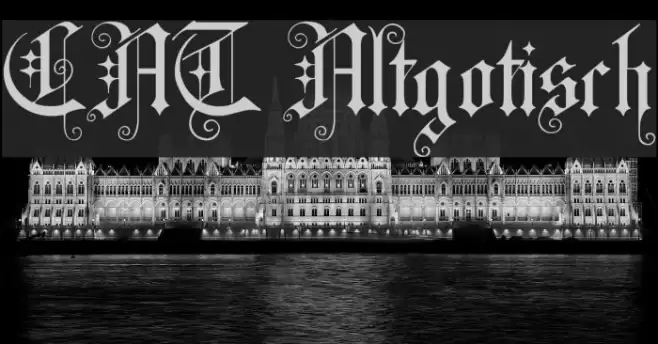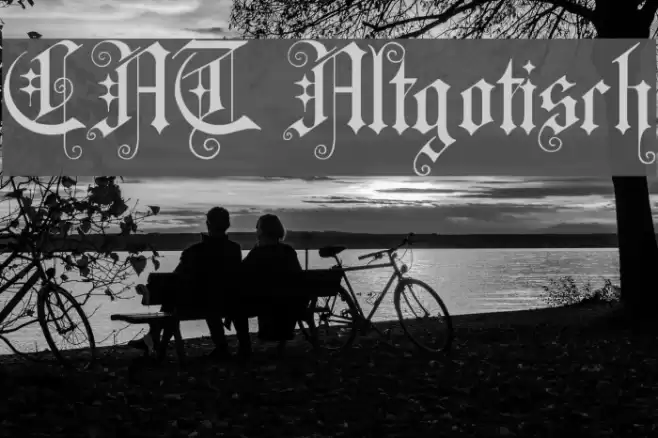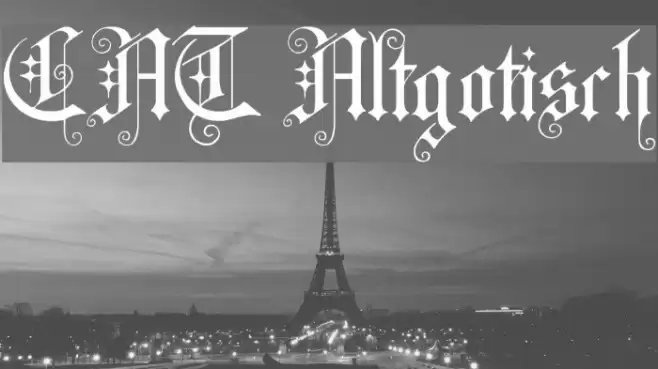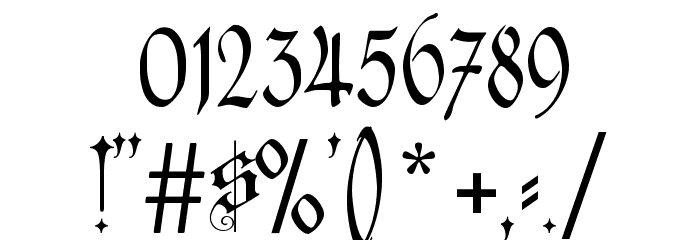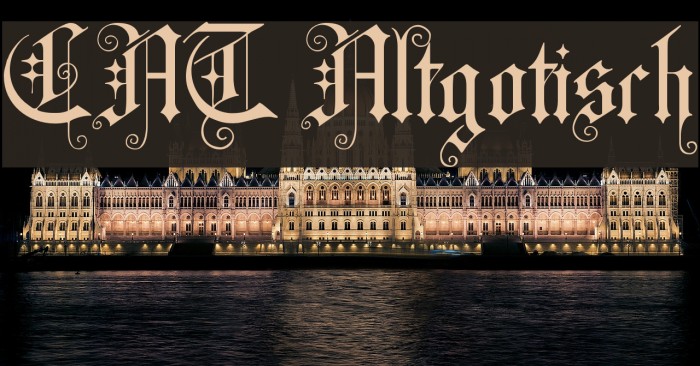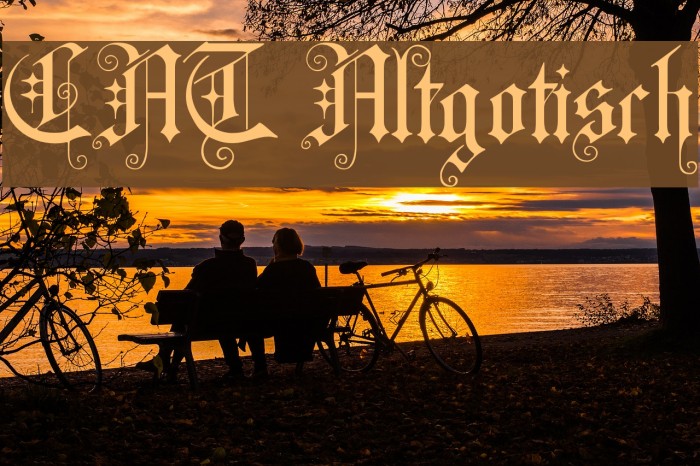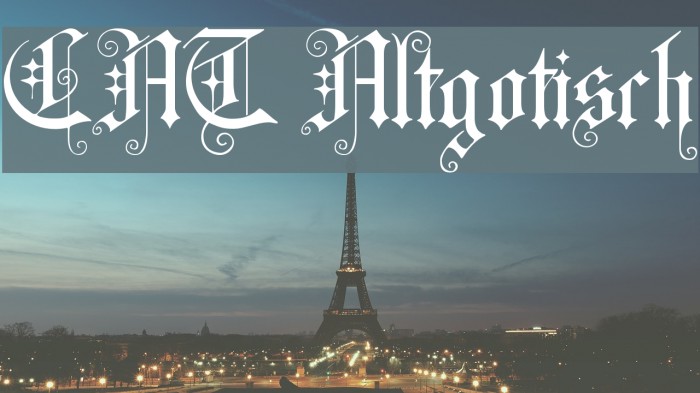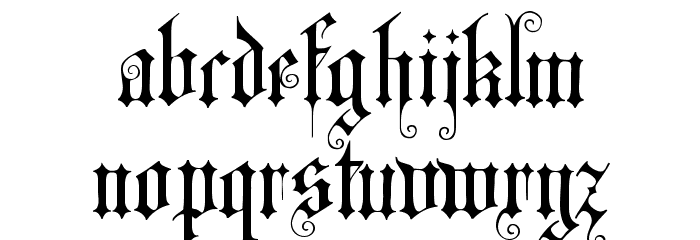
CAT Altgotisch Font
CAT Altgotisch Description
This font exhibits a classic blackletter style, characterized by its ornate and intricate design. The uppercase letters are highly decorative, featuring elaborate swirls and flourishes that extend from the main strokes. The lowercase letters maintain a similar level of detail, with sharp angles and pointed serifs that give the font a distinct Gothic appearance. The numerals are consistent with the overall style, incorporating sharp edges and a bold presence. Special characters are equally ornate, enhancing the font's decorative nature. This font is ideal for projects that require a historical or medieval aesthetic, offering a dramatic and eye-catching appearance.
An ornate blackletter font with intricate details and a Gothic style from Uncategorized fonts.
- Proposed Projects: Ideal for historical documents, medieval-themed designs, book covers, and decorative posters.
- Overall Style: Vintage
- Use Case: Logos, Headlines, Decorative text